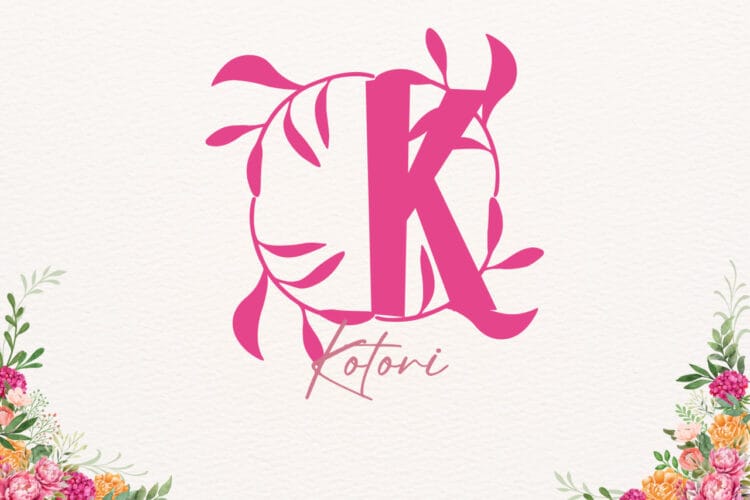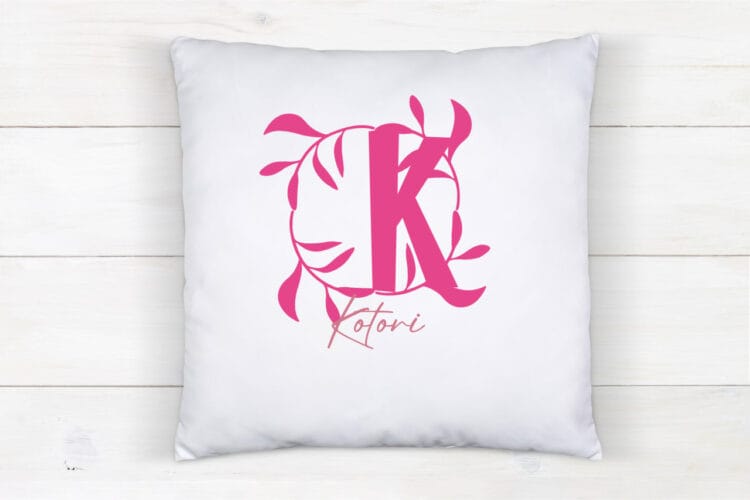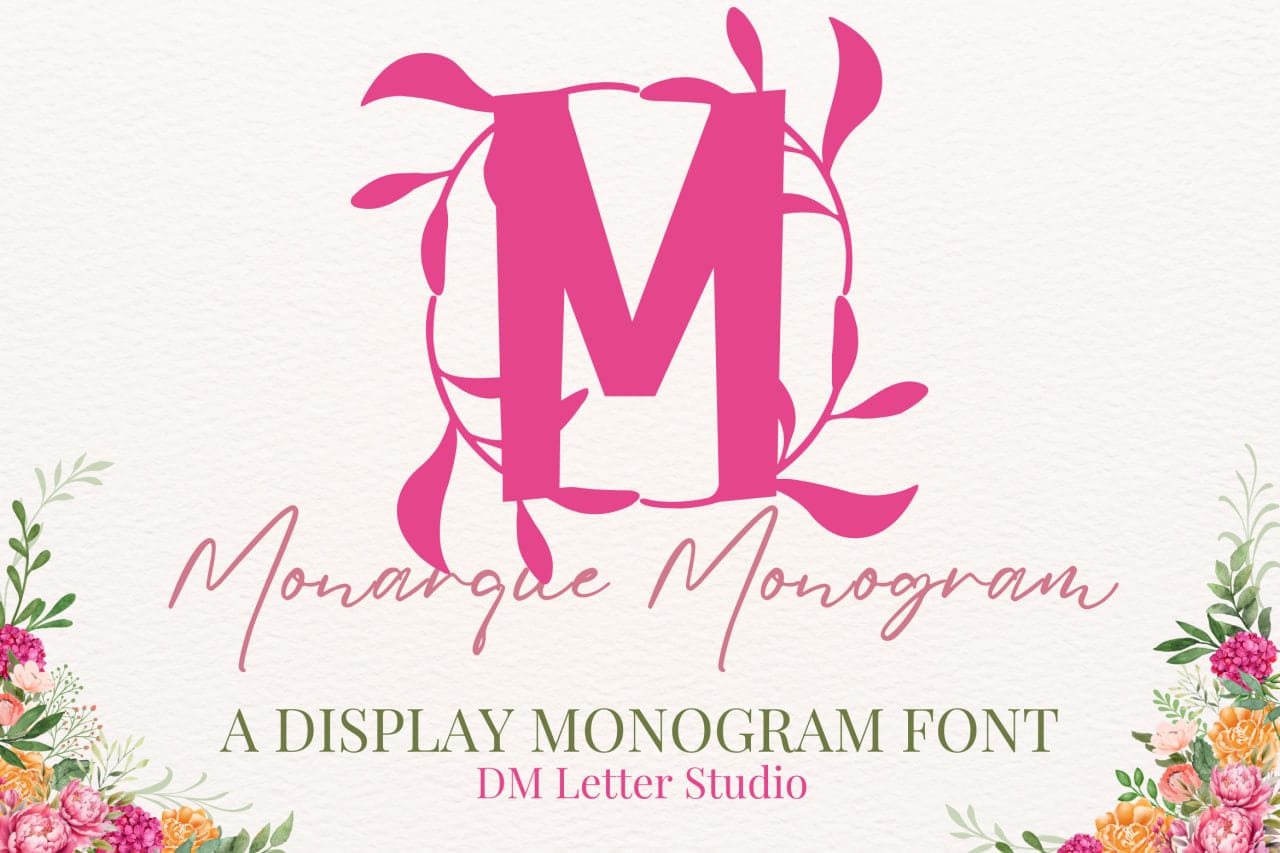
Meet Monarque Monogram, the Monogram Font
Monarque Monogram Font turns initials into bold and elegant marks with a royal touch. The letterforms feel strong yet refined. Each shape is clean, balanced, and easy to read. Because the strokes are open and clear, the font works well at small sizes. At the same time, it holds a confident presence on large prints. As a result, Monarque is ideal for weddings, luxury branding, stationery, and premium keepsake designs.
Where this monogram font shines
Use single, double, or triple initials for logos, invitations, menus, place cards, and seals. Because the proportions are steady and symmetrical, layouts feel formal and polished. For example, you can place the initials inside crests, shields, circles, or elegant frames. In addition, Monarque keeps a consistent look across invitations, signage, boxes, ribbons, and gift tags. Whether used on small labels or grand displays, it scales smoothly and maintains its authority.
Design tips for Monarque Monogram
Keep the initials bold and give them room to stand out. This enhances the regal feel. Pair the monogram with a classic serif for body text or a clean sans serif for dates and details. Also, thick cardstock, textured paper, and metallic foils elevate the luxurious look. Because the design is already strong, avoid long wording. That way, the monogram stays the main focus on seals, packaging, and statement pieces.
Select stylistic alternates for key letters
Curves optimized for foil, letterpress, engraving, laser cutting, and clean vinyl paths
Why creators choose this monogram font
You want a monogram that feels bold, regal, and easy to use. At the same time, you need clear results and flexible layouts. That is why Monarque Monogram Font is a trusted choice. It delivers classic authority with simple setup. In the end, your designs look polished across print, events, and packaging.